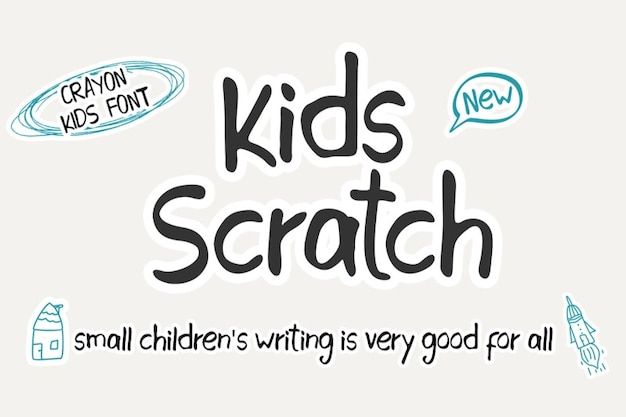
Kids Scratch Font
Kids Scratch font is pure playful energy—it's like handwriting straight from a kid's notebook. Each letter feels scribbled with joy, carrying that carefree schoolyard charm. It's the font that captures the essence of youthful spontaneity, perfect for adding a fun, handwritten touch to school projects or designs, bringing the creative scribbles of childhood to life.